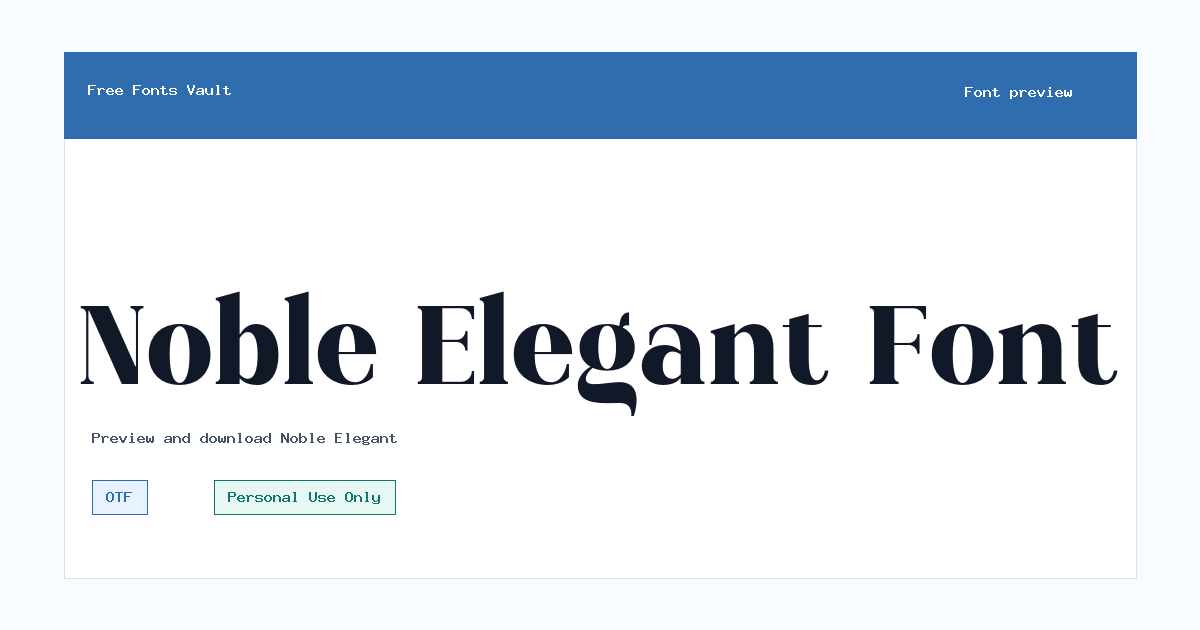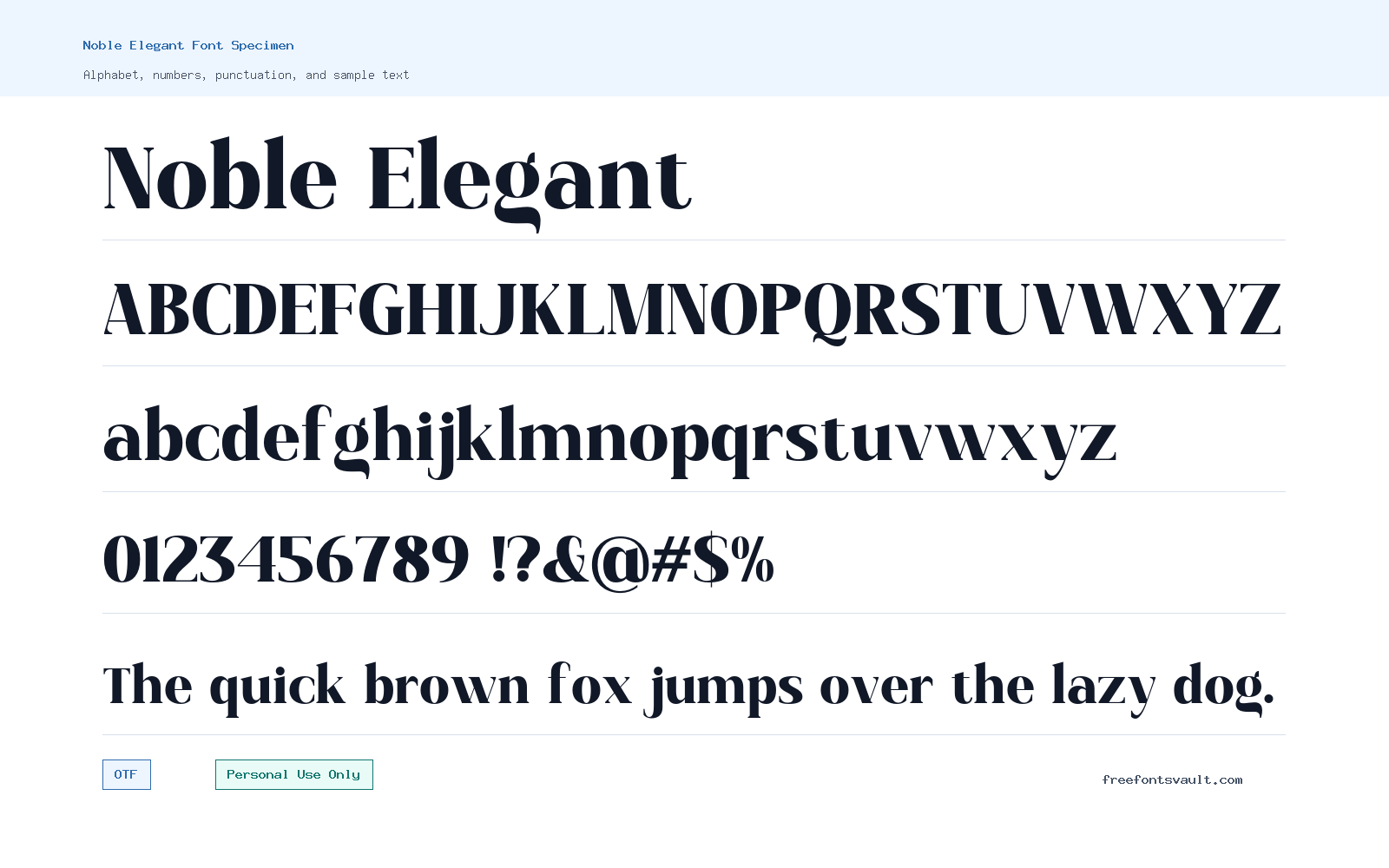
Noble Elegant
- Designer Bakhrudin Ja'far
Noble Elegant is a serif font for personal projects where you want a polished, formal look without making the layout feel too heavy.
About Noble Elegant Font
Noble Elegant works best when it has room to show its character. Use it for short text such as names, invitation headings, quote graphics, boutique-style labels, personal branding drafts, or decorative title lines. Because it is a serif design, it can bring a more classic and refined tone than a plain sans serif, especially in layouts that need a calm, graceful first impression. The font file on this page is the Regular style in OTF format, so it should be simple to test in most modern design apps, including common desktop publishing, image editing, and presentation tools.
For the best preview, try Noble Elegant with the exact words you plan to use. Test uppercase and lowercase letters, names with repeated characters, punctuation, and numbers if your design needs them. Keep an eye on spacing at large sizes, especially in logos, monograms, and social graphics where a single awkward gap can stand out. It may look more effective in headlines than in long paragraphs, so pair it with a clean sans serif or a quiet text serif for body copy. If you use it on an image, give the letters enough contrast and avoid busy backgrounds that compete with the strokes.
- Serif styling suited to short, elegant display text
- Personal invitations, quote graphics, name cards, and social media titles
- Boutique-style headings, mood boards, packaging drafts, and branding concepts
The designer is listed as Bakhrudin Ja'far, with Roomspace Creative Lab given as the designer website.
What style of font is Noble Elegant?
Noble Elegant is identified as a serif font. It is best approached as a display choice for short, polished text rather than long body copy.
Who designed Noble Elegant?
The designer is listed as Bakhrudin Ja'far. The related designer website is Roomspace Creative Lab.